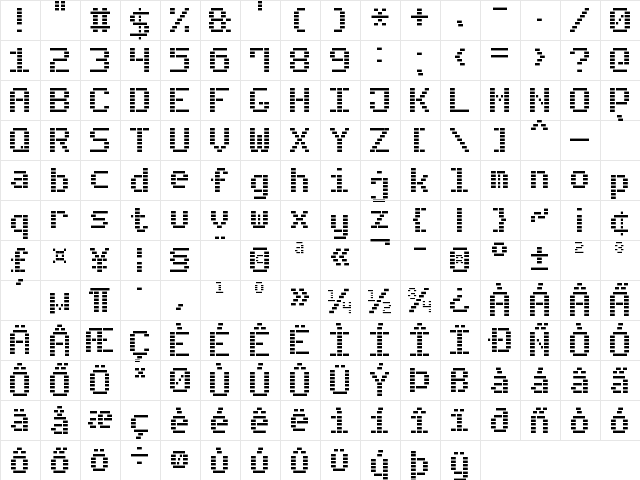
Dash Digital-7 Regular
| Foundry | Style-7 |
| Designer | Sizenko Alexander |
Design Context for Dash Digital-7 Typeface
Dash Digital-7 channels digital-age aesthetics through its sharp, structured letterforms — ideal for brands that want to signal innovation.